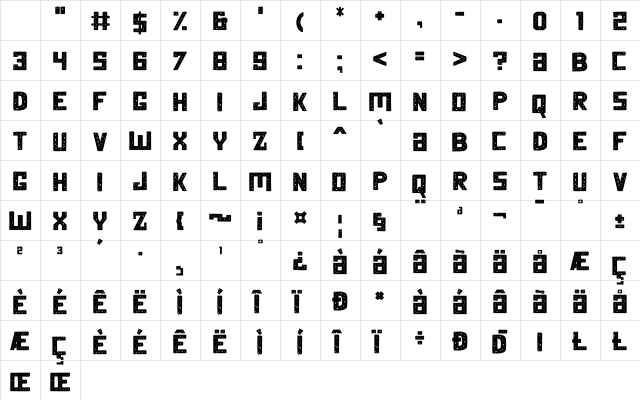
Summer Square Rough embraces imperfection - its rough, textured character adds raw authenticity to designs that want to feel lived-in and unconventional.
Pro Tip: Use Summer Square Rough at larger sizes where the texture and irregularity of each letterform can be clearly seen - it loses its character at small sizes.